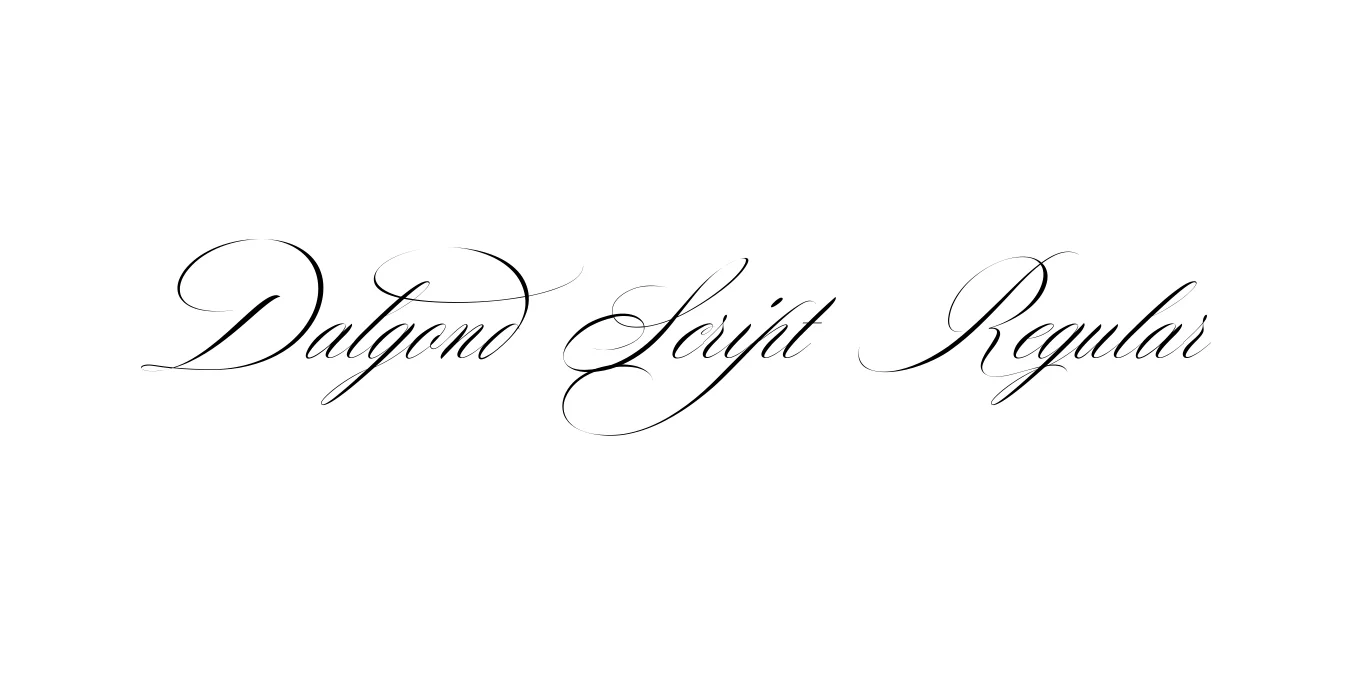
Dalgond Script Regular
Designed by Maulana Creative
Dalgond Script Regular is a sophisticated and elegant hand-lettered calligraphy typeface that captures the essence of modern fluidity. Characterized by its graceful strokes and seamless transitions, this font is designed to add a touch of luxury and refinement to any creative project. The natural flow of the letters mimics traditional ink-on-paper artistry, making it a favorite for designers seeking a personal, handcrafted feel that stands out in a digital world.
Technically, Dalgond Script Regular is built with high-quality curves and often includes a variety of OpenType features such as stylistic alternates and ligatures. These elements allow for a more customized typographic experience, ensuring that every word looks balanced and harmonious. Whether used for large-scale branding or intricate stationery details, this font maintains its legibility and aesthetic appeal across both digital displays and high-resolution print mediums.
Dalgond Script Regular Best Uses
Perfect for elegant invitations, envelopes, and place cards due to its romantic feel.
Ideal for luxury brands, boutique fashion logos, and signature-style marks.
Excellent for creating eye-catching quotes and high-end aesthetic graphics.
Adds a premium and personal touch to cosmetics, perfume, or confectionery packaging.